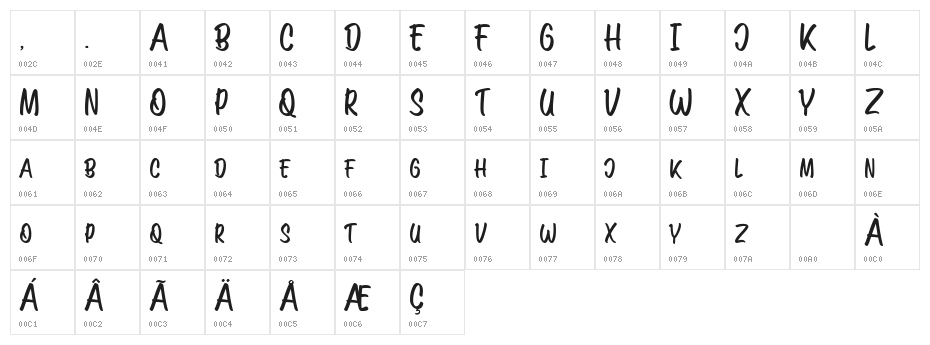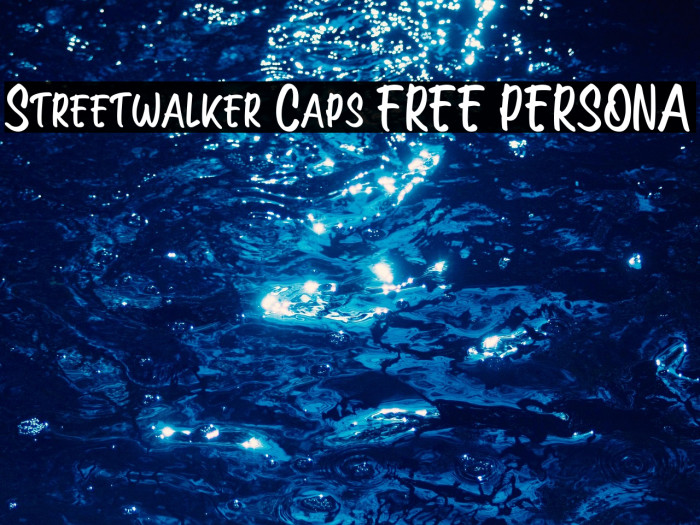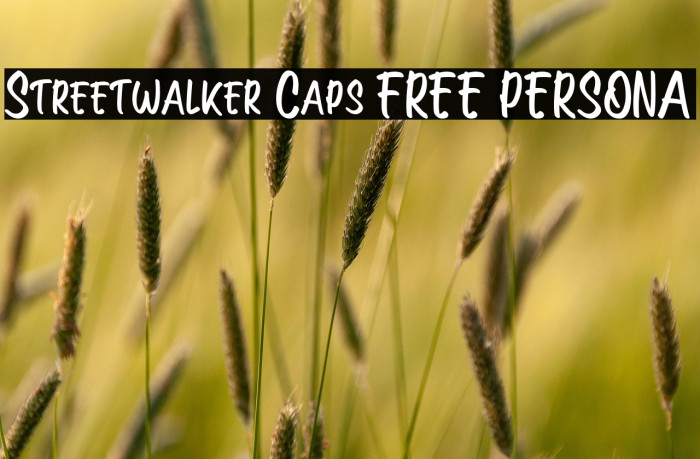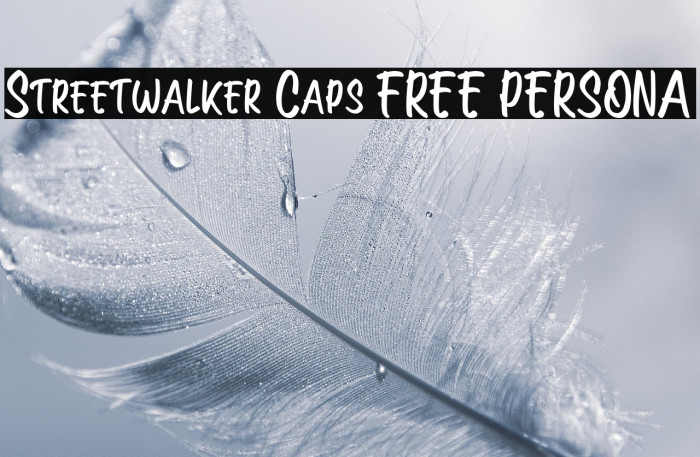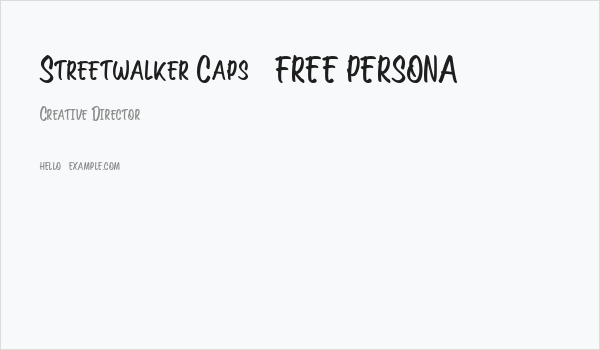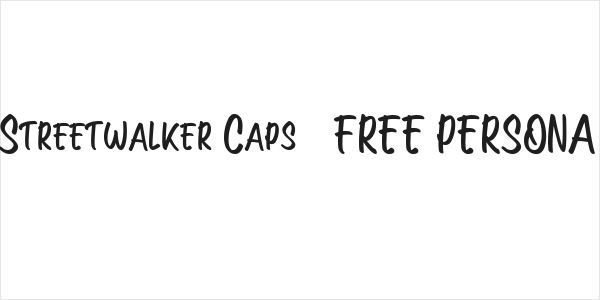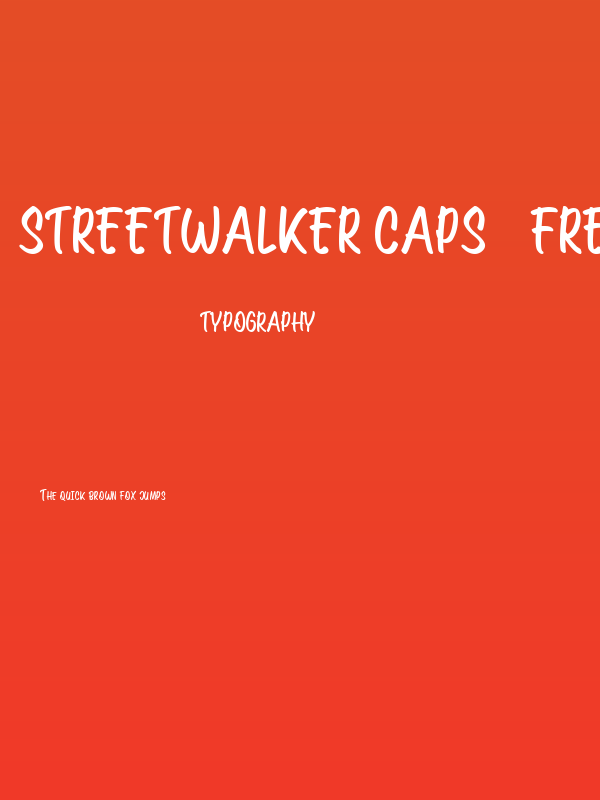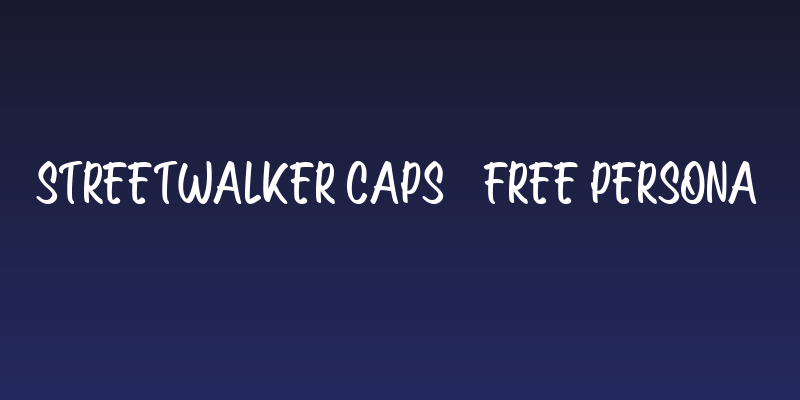
Streetwalker Caps [FREE PERSONA Font
Streetwalker Caps [FREE PERSONA Description
This font features a bold and playful handwritten style, characterized by its thick, rounded strokes and slightly irregular shapes. The letters have a casual and friendly appearance, making them ideal for informal and creative projects. The uppercase letters are prominent and eye-catching, while the lowercase letters maintain a consistent flow, adding to the font's overall charm. The spacing between characters is moderately tight, enhancing the cohesive look of the text. This font is well-suited for designs that require a personal touch or a sense of whimsy.
| Overall Style | Playful, Casual |
| Proposed Projects | Ideal for greeting cards, children's books, playful branding, and social media graphics. |